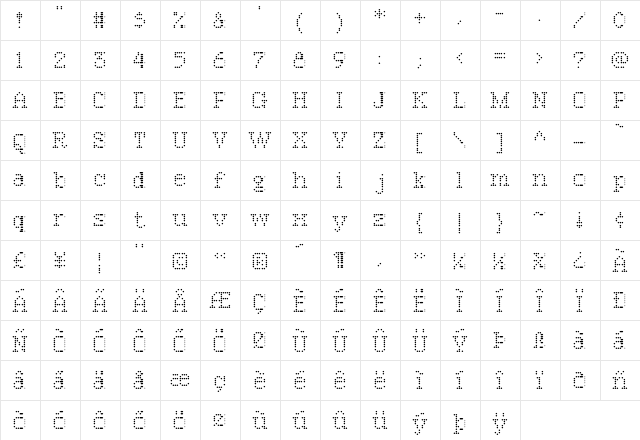
CK Punchmat Regular Font Preview
CK Punchmat Regular
Design Context for CK Punchmat Typeface
CK Punchmat is a composed and adaptable typeface that performs quietly and consistently across a wide range of design contexts.